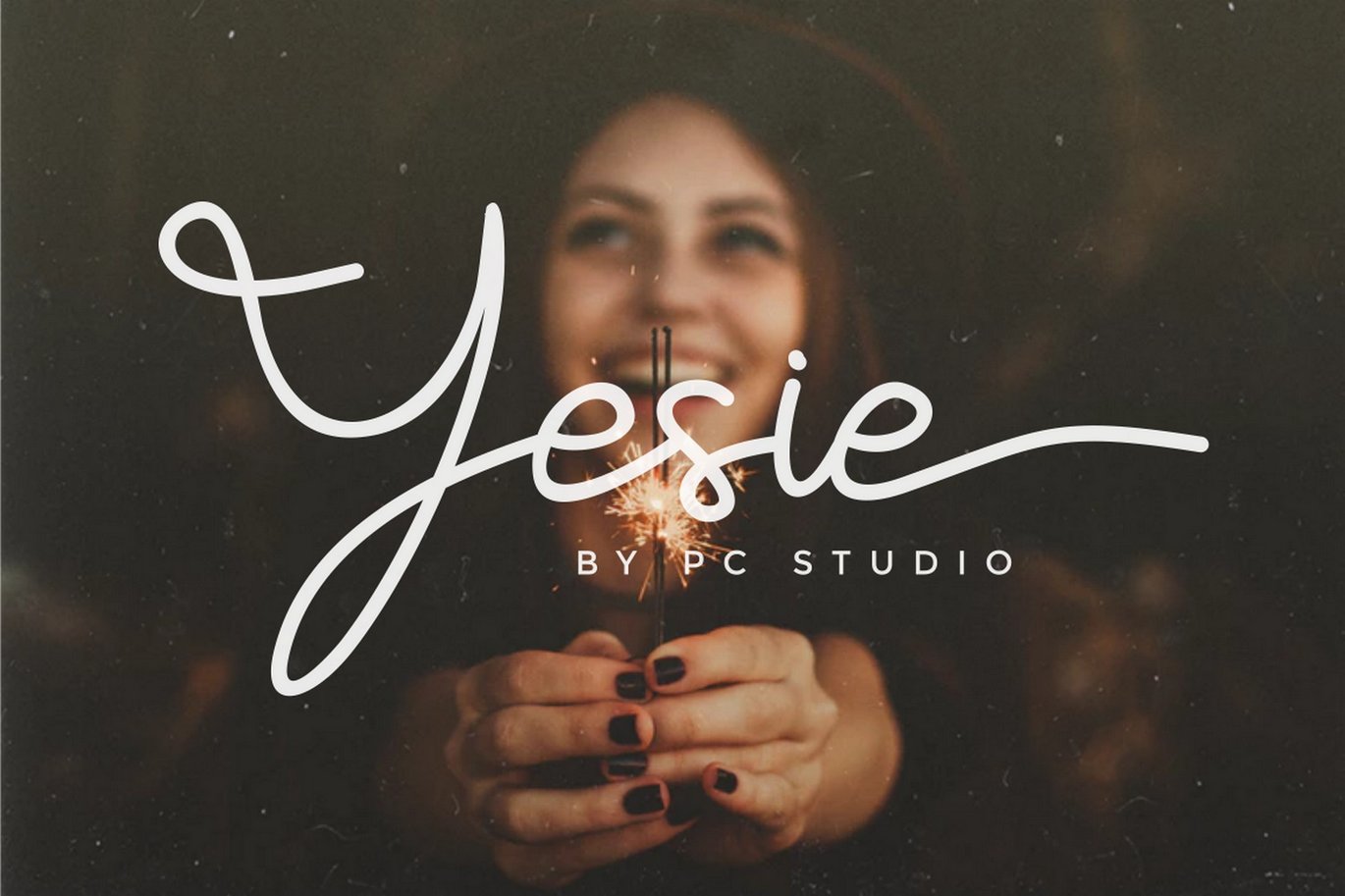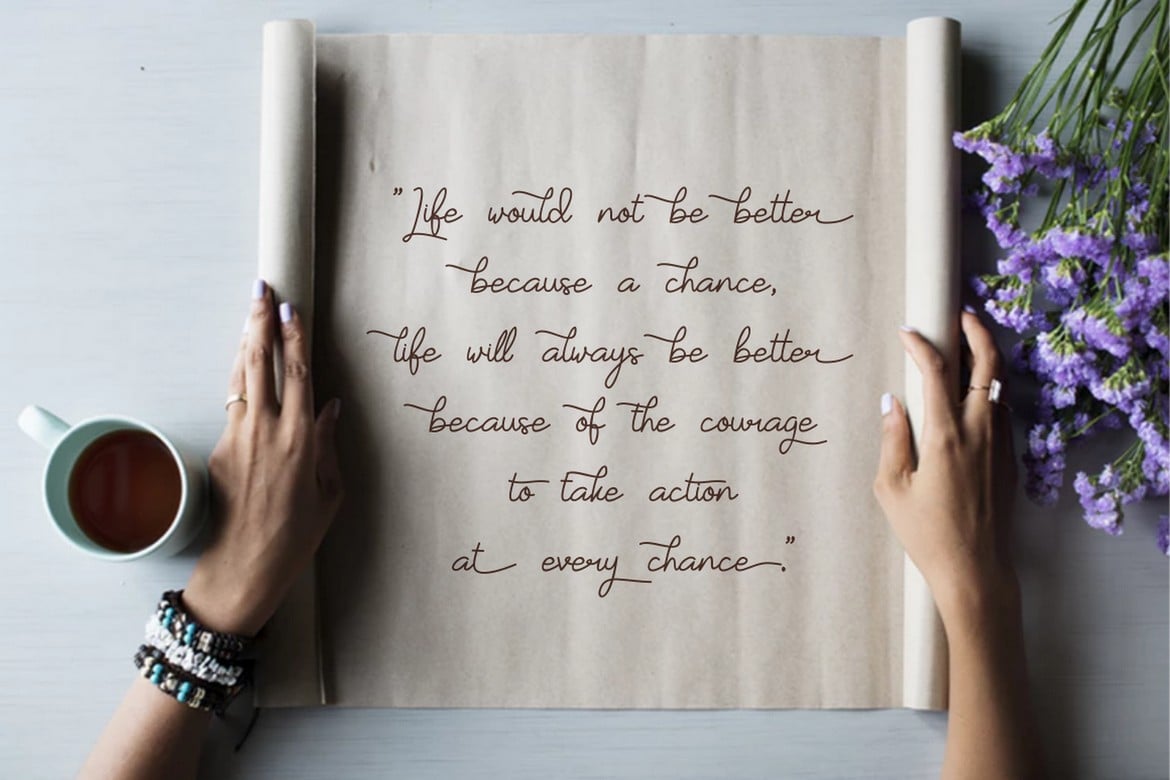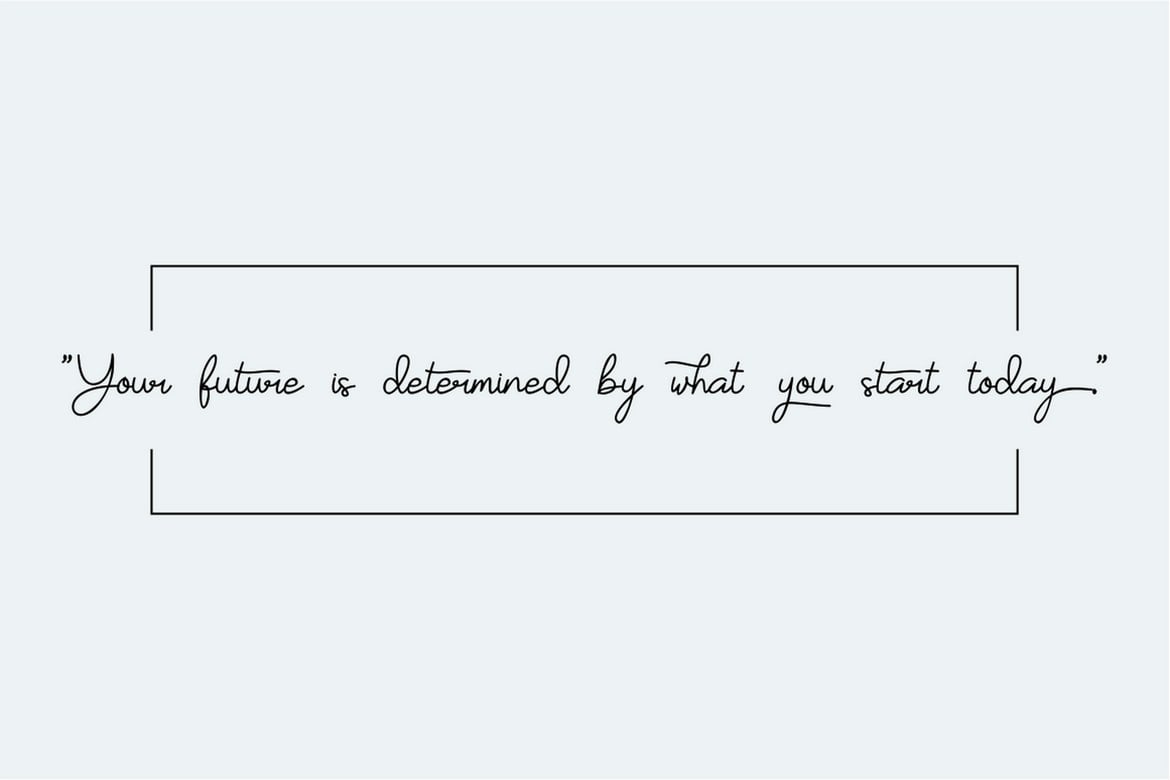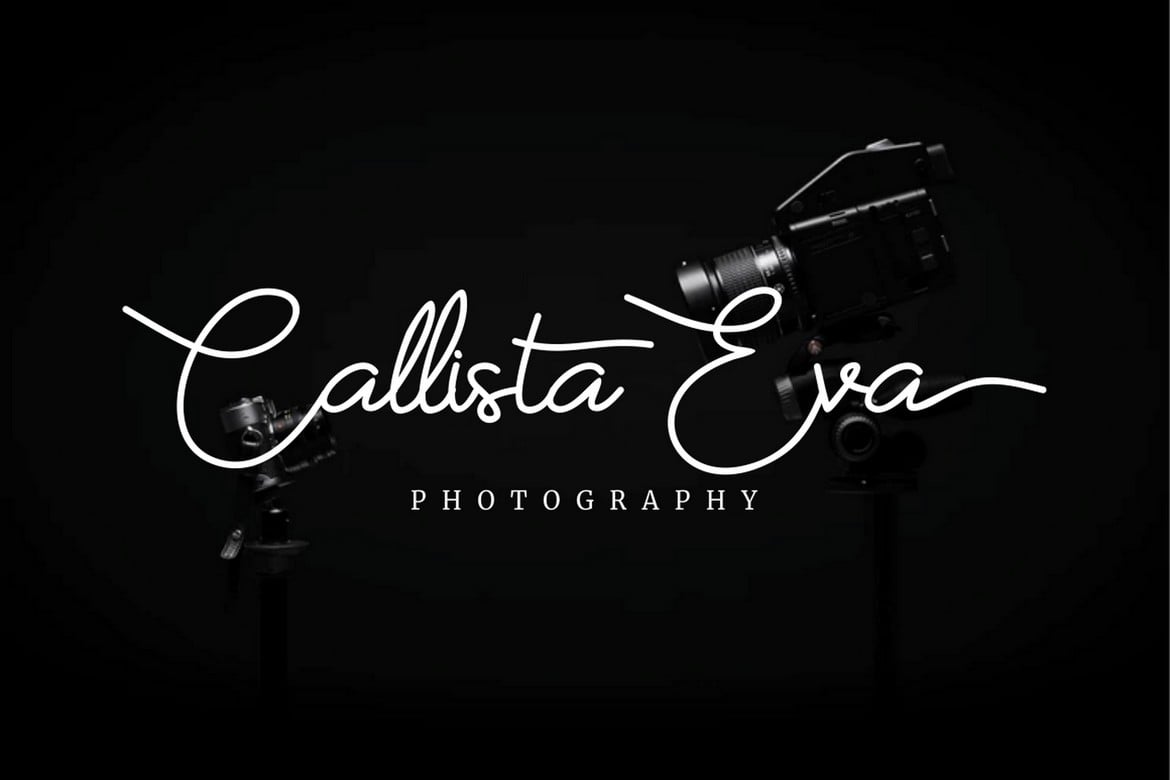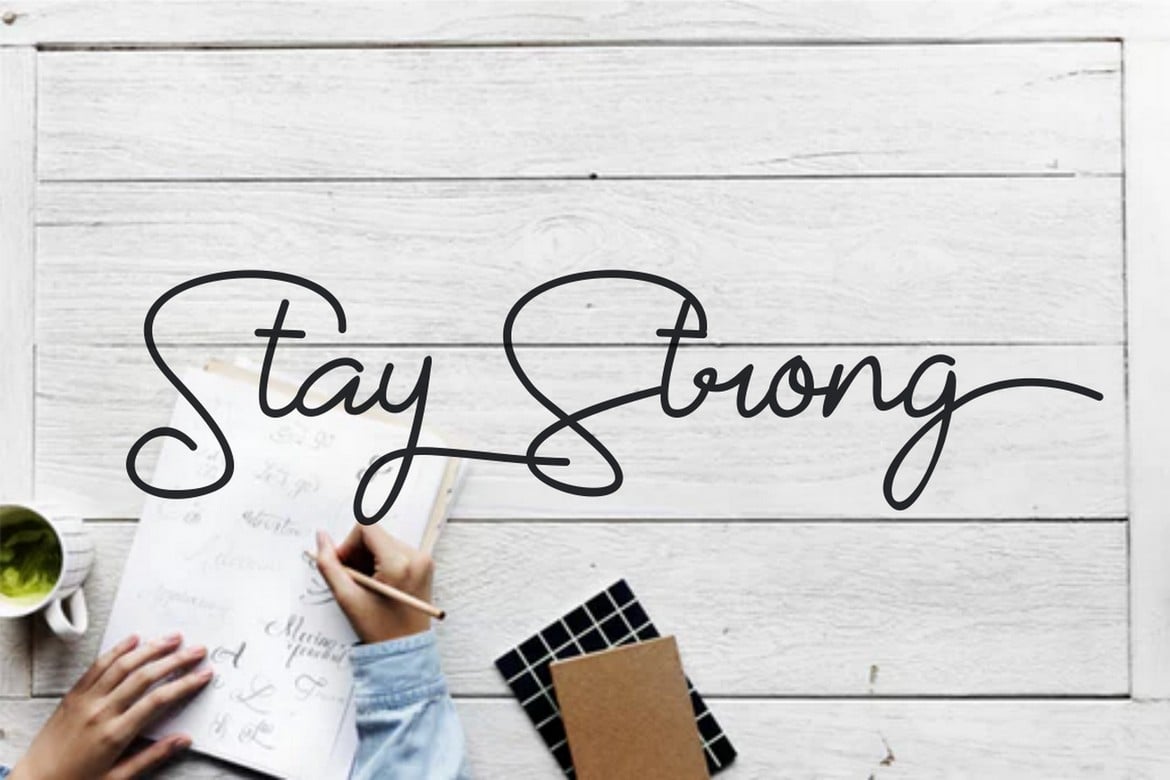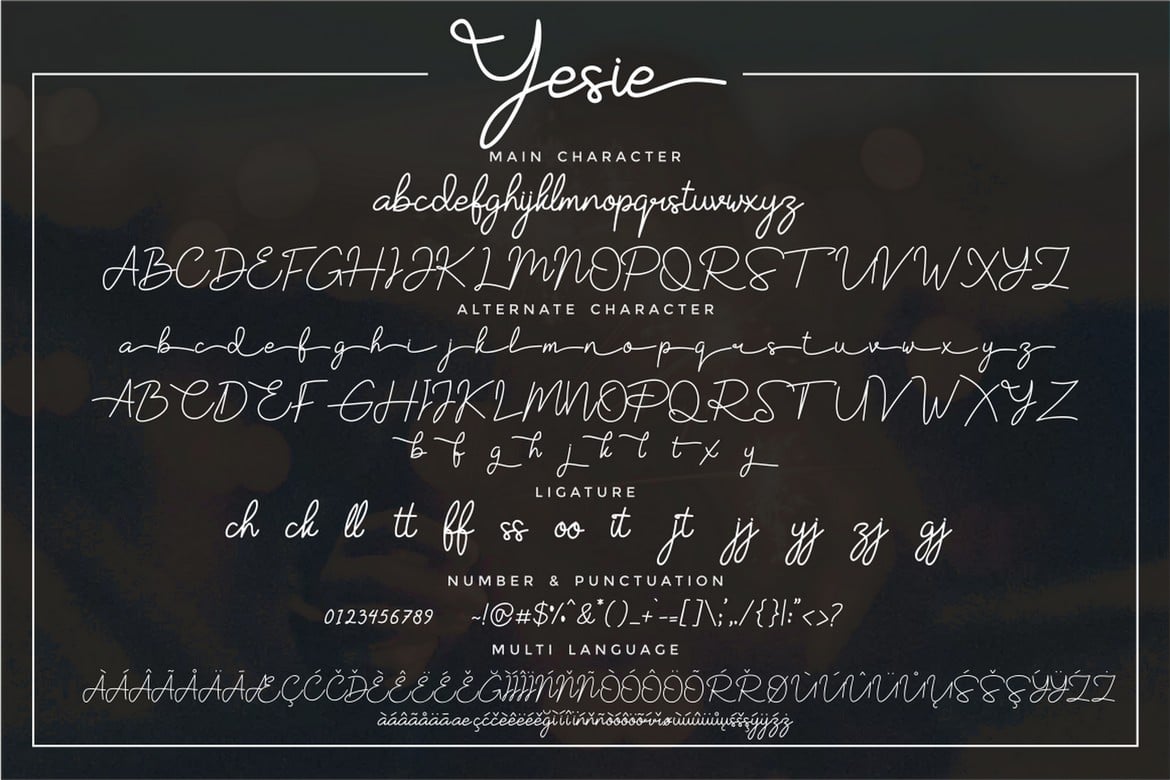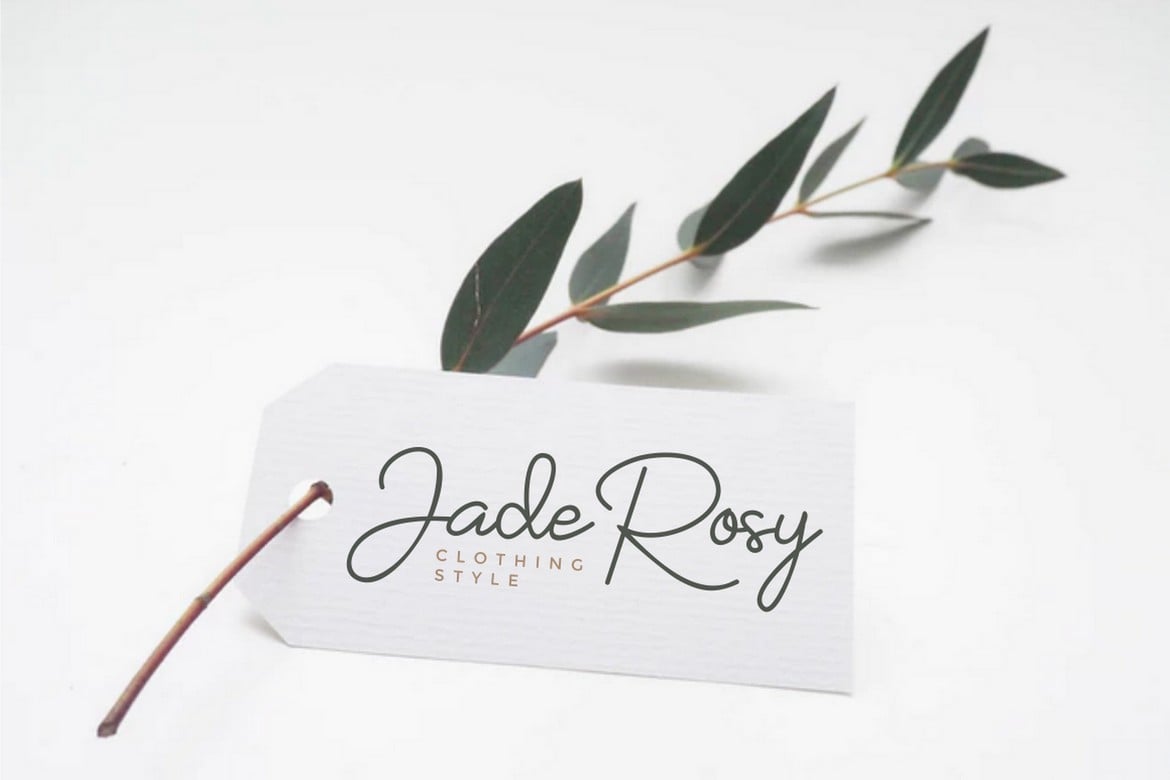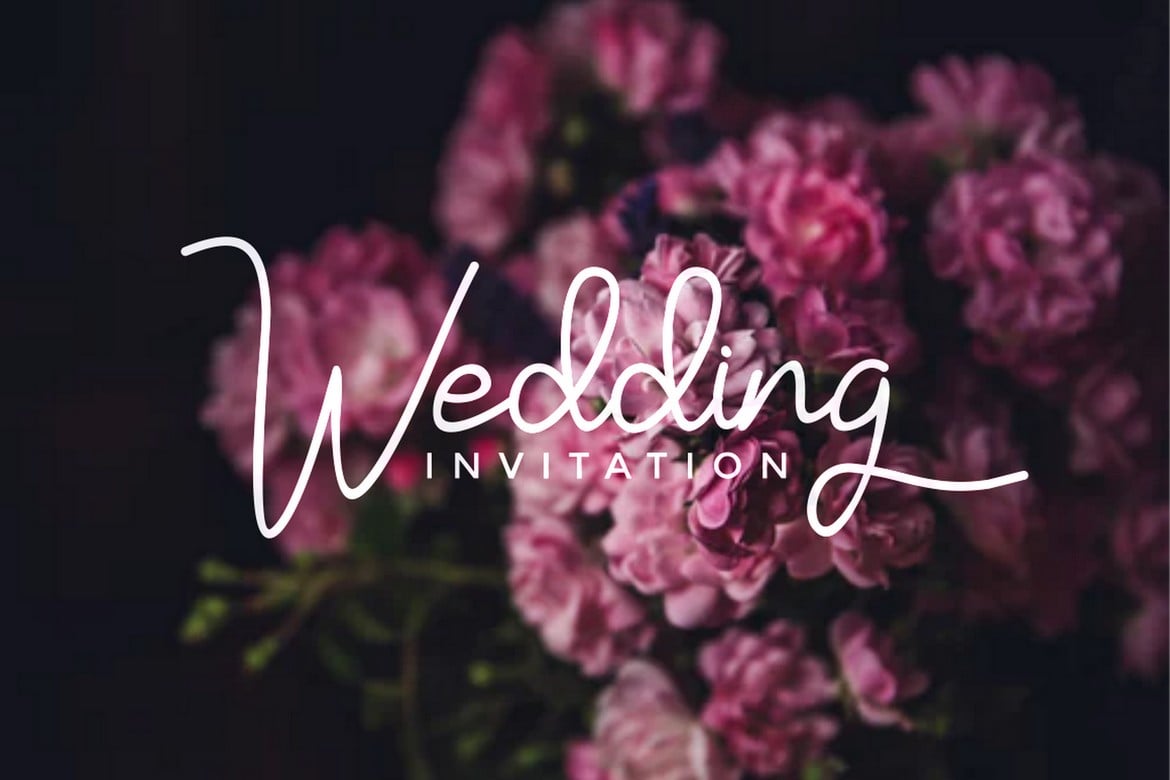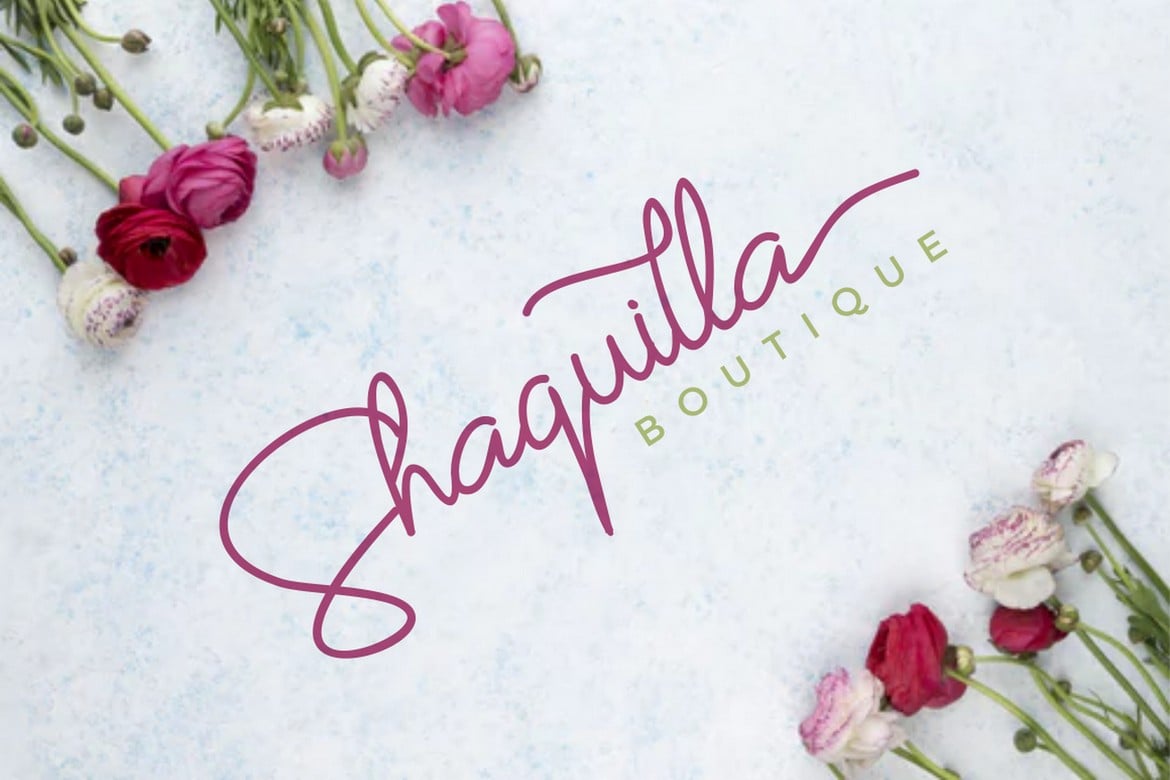
Yesie – Monoline Cursive Script Font
** YESIE **
YESIE is a monoline cursive script font, easily legible script font which would work for a wide variety of purposes. Works great applied to for headlines, titles, heading, logos, posters, invitation,book, branding, booklet, flyer and any creative design.
This font contains all uppercase and lowercase english alphabet, numbers, punctuation, symbol and multilanguage.
** Comes with : **
- 2 Version Uppercase (Alternate)
- Lowercase (With Alternate)
- Simple Ligature
- Number, Punctuation & Symbols
- Multilanguage